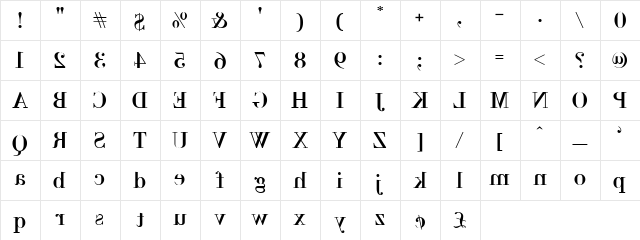
BackBod Normal
Design Context for BackBod Typeface
BackBod takes a measured approach to typography — its balanced proportions and neutral character make it a reliable workhorse for both digital and print work.